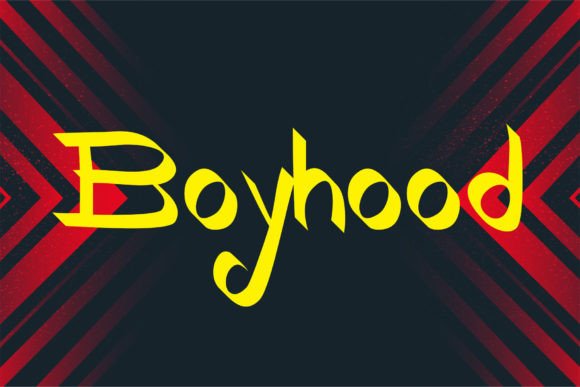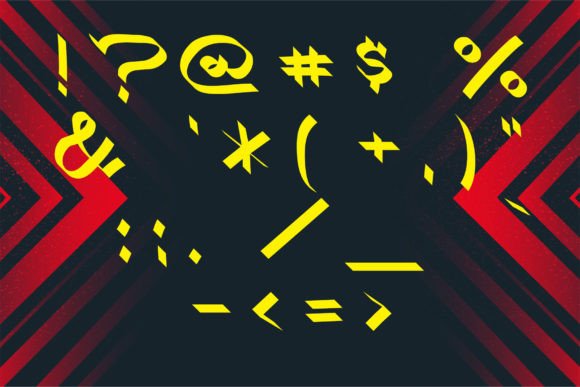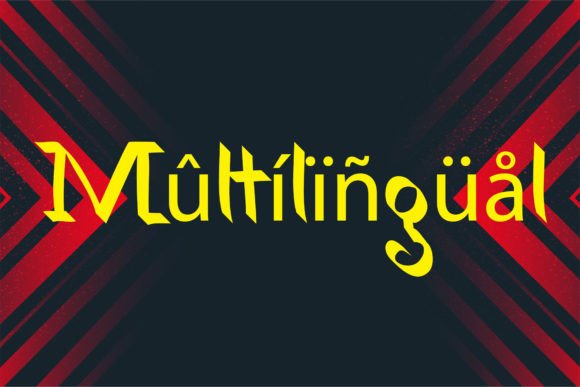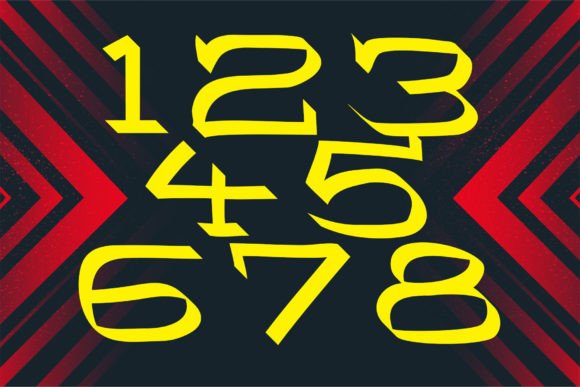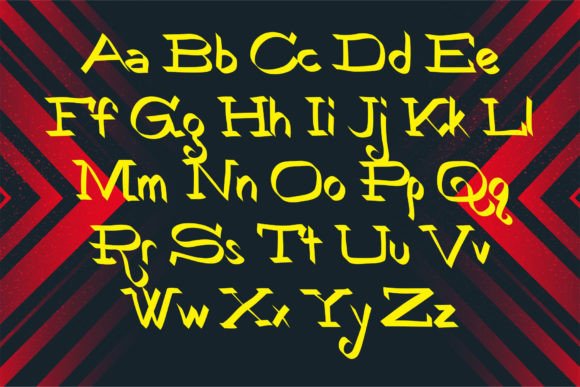
Boyhood
Boyhood: A Unique Slab Serif Font
Boyhood is a unique slab serif font that brings distinctive character to design projects. This versatile typeface offers a special style that enhances various creative applications.
Key Features of Boyhood
• Unique Design: Offers distinctive letterforms.
• Versatile Style: Adapts well to various projects.
• Creative Character: Brings personality to designs.
• Project-Ready: Perfect for immediate application.
Best Uses for Boyhood
Thanks to its unique characteristics, Boyhood works especially well for:
When using Boyhood in your designs, keep these tips in mind:
• Try it for headlines or display text to showcase its unique style.
• Use different sizes to highlight its distinctive features.
• Let its character enhance creative projects.
• Take advantage of its versatility across applications.
To sum up, Boyhood is an excellent choice for designers seeking a unique slab serif font. Its distinctive style makes it perfect for various creative projects. Whether you’re creating modern layouts or developing artistic designs, Boyhood offers the perfect blend of uniqueness and versatility.
Furthermore, Boyhood’s distinctive design allows it to shine in contexts where creativity is key. For instance, from display typography to artistic applications, this font can elevate your projects with its special style. Also, its unique yet practical appearance works particularly well in designs that aim to make a distinctive impact.
In conclusion, Boyhood truly stands out in the world of slab serif typography. Its ability to enhance various design projects shows how well it can serve creative needs. Therefore, for those wanting to add a unique touch to their work, Boyhood can transform any design with its distinctive style. Ultimately, it’s perfect for designers aiming to make a creative, memorable impact across their projects.